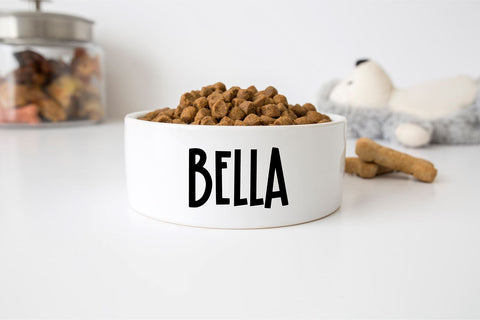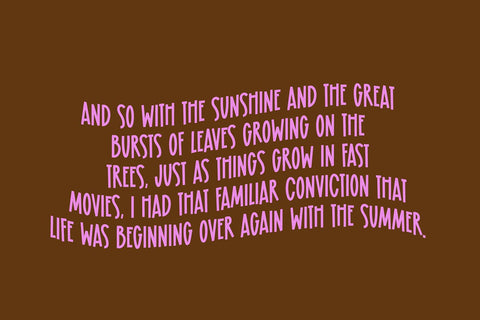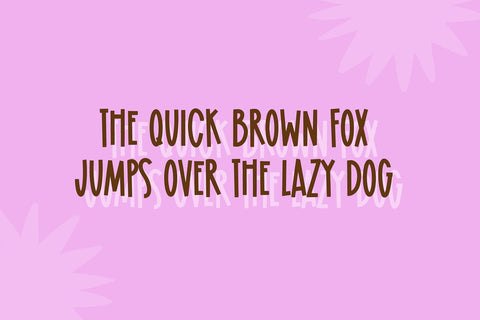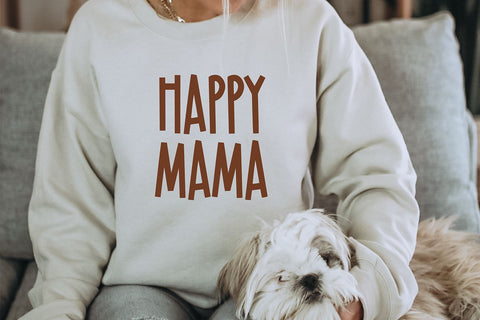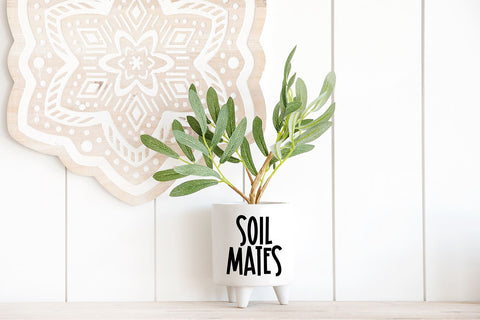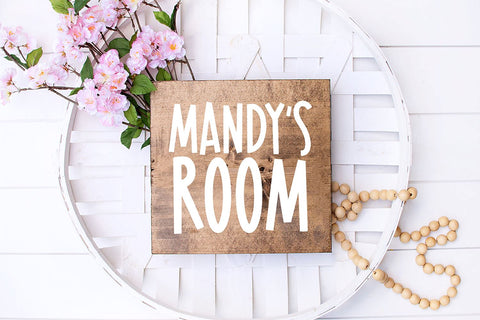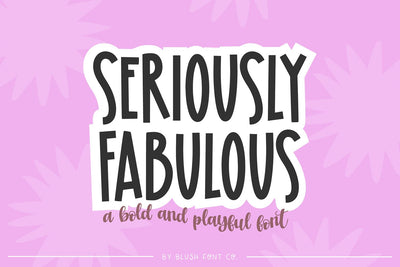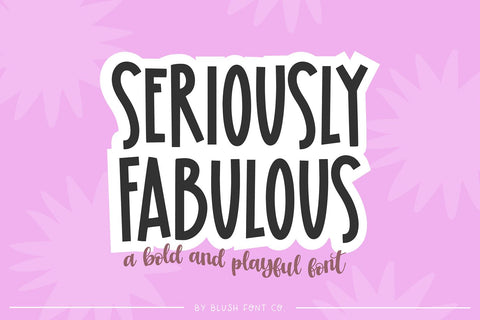
Seriously Fabulous Block Font
"Seriously Fabulous" a chunky and tall display font.
This font is an adorable bold font that is perfect for social media or crafty projects. Use if for branding, crafts for decor, invitations, and more!